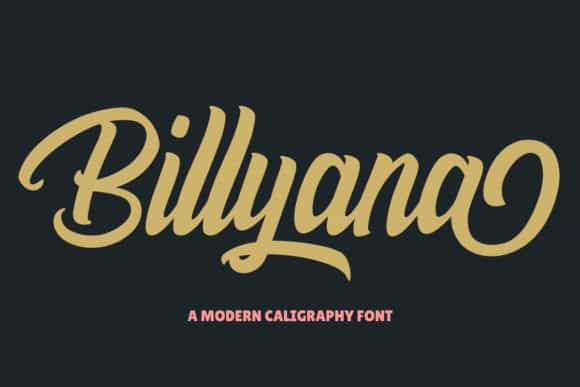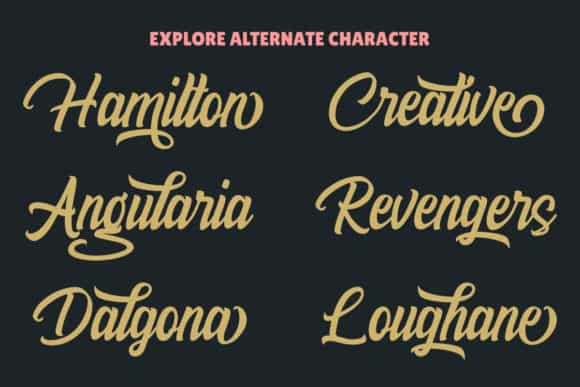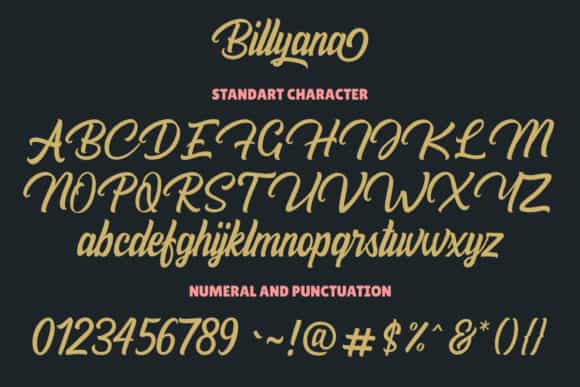
Discover Billyana Bold Script Font, part of the Calligraphy Script collection—a versatile and unique font perfect for adding a personal touch to your projects. Download it for free and enjoy crafting designs with style, from invitations to social media posts. This font is available exclusively for personal use, giving you the freedom to create without limits. Unlock your creativity with Billyana Bold Script Font today!
In the typical vintage style of Billyana script typeface, it perpetuates an unusual taste for a font. Any kind of design project like branding, product designs and labels can be made with Billyana Font. You could also use it for logos, social media posts, advertisements, product packaging, photography but it’ll look great in any project you undertake.